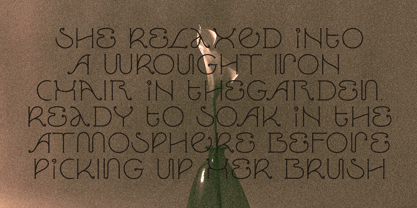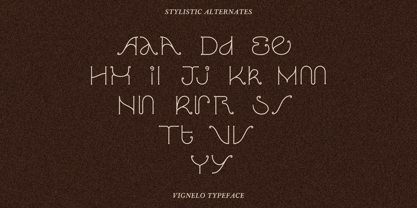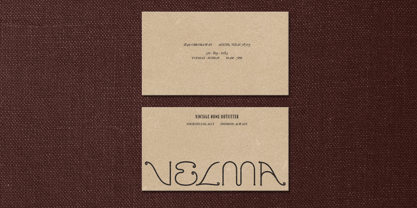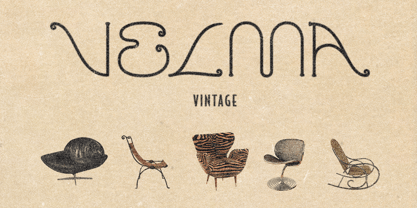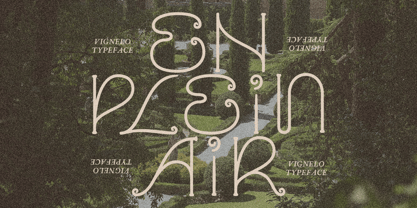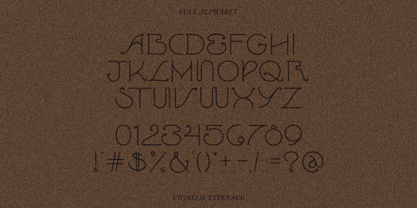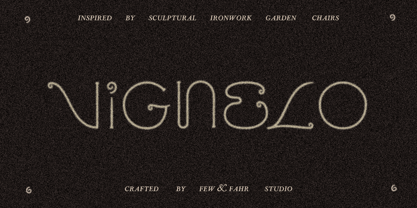
Vignelo
by Few & Fahr Studio
Vignelo is a display typeface inspired by the charming lines of European ironwork furniture. It features subtle flairs, such as spiraled and footed terminals, unique curves, and intentional flow - just like that of a terrace patio chair. Vignelo invokes the energy of a patio in an Italian garden - but not just any patio, an artist's patio. One where furniture pieces and textiles are intentionally curated - where pottery is thrown or paintings are done en plein air. Vignelo comes with a handful of alternates, allowing for a varietal look.